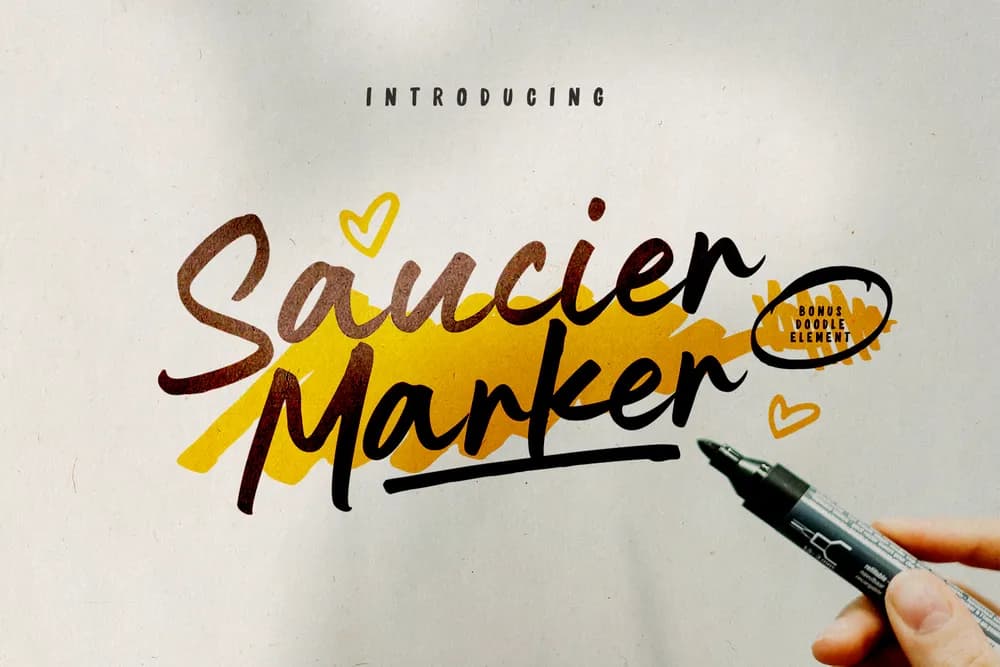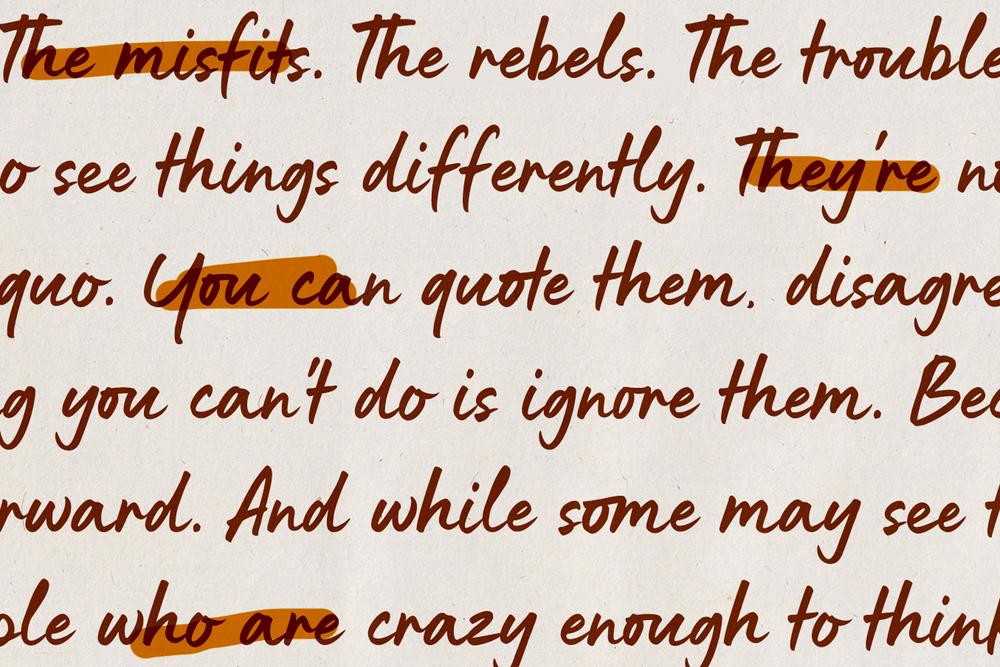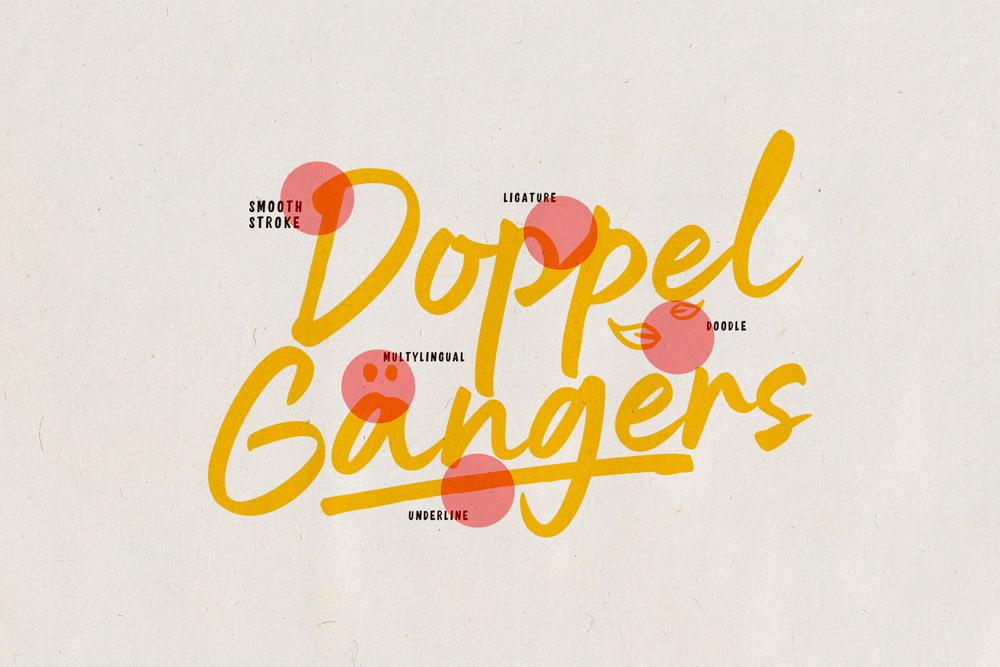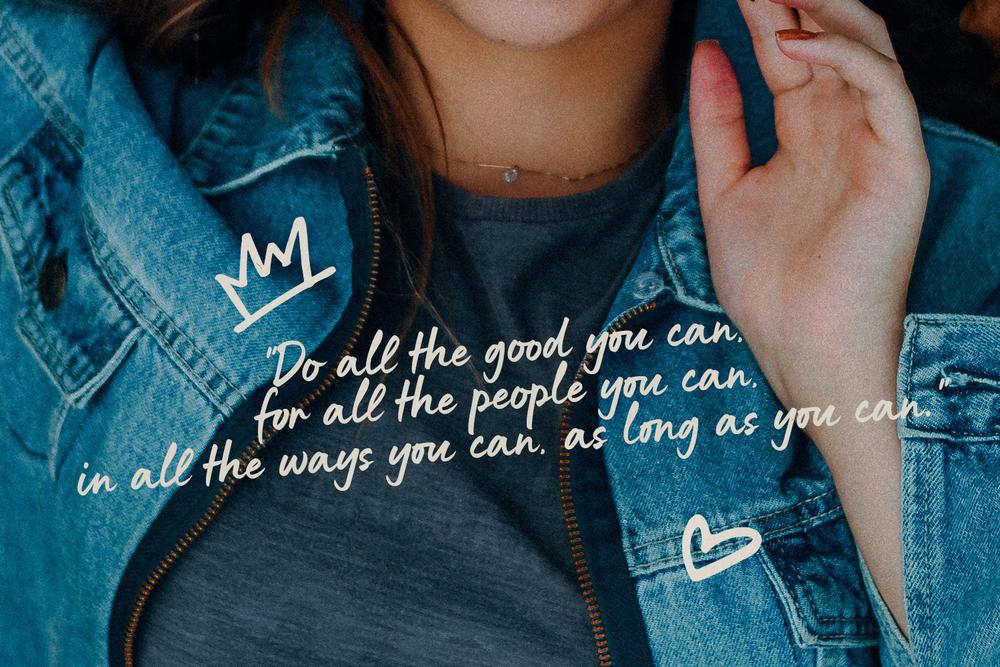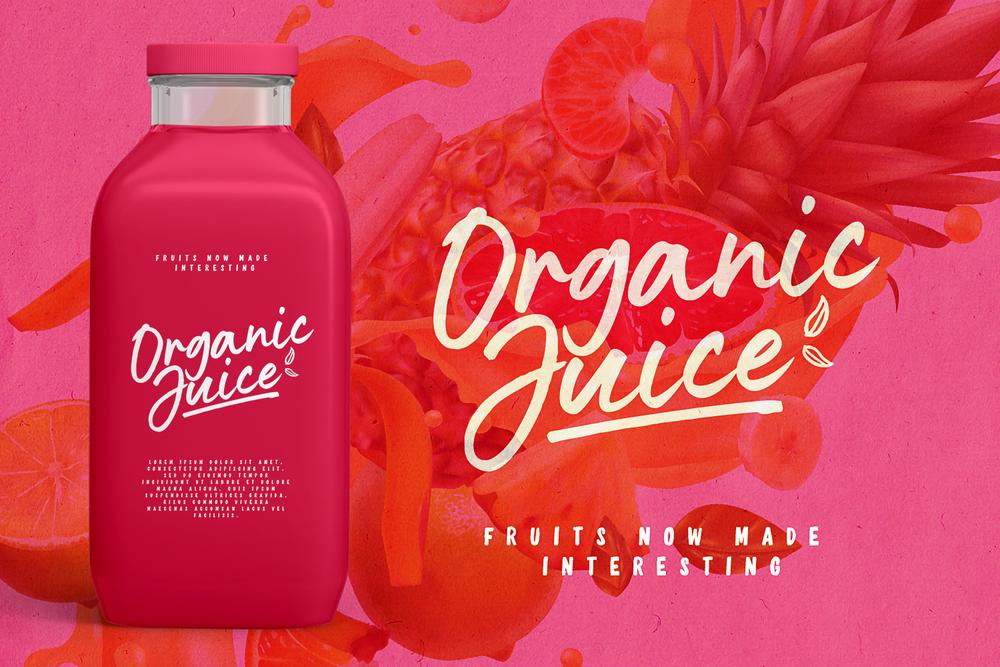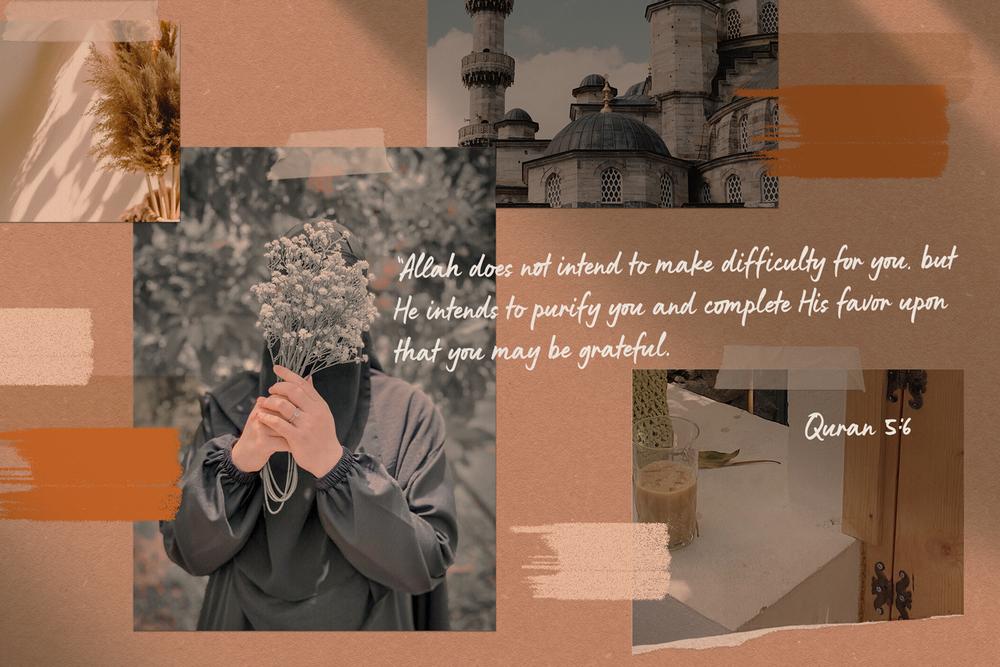
Saucier Marker is a cool and Handwritting script font. It can be used for various creations that require a personalized, genuine touch. Fall in love with this font and explore its endless possibilities. FEATURES : Uppercase Lowercase Number Punctuation Multilingual PUA Encode FILES INCLUDED : Saucier Marker OTF Saucier Marker TTF Saucier Marker Doodle OTF Saucier Marker Doodle TTF Saucier Marker WebFont